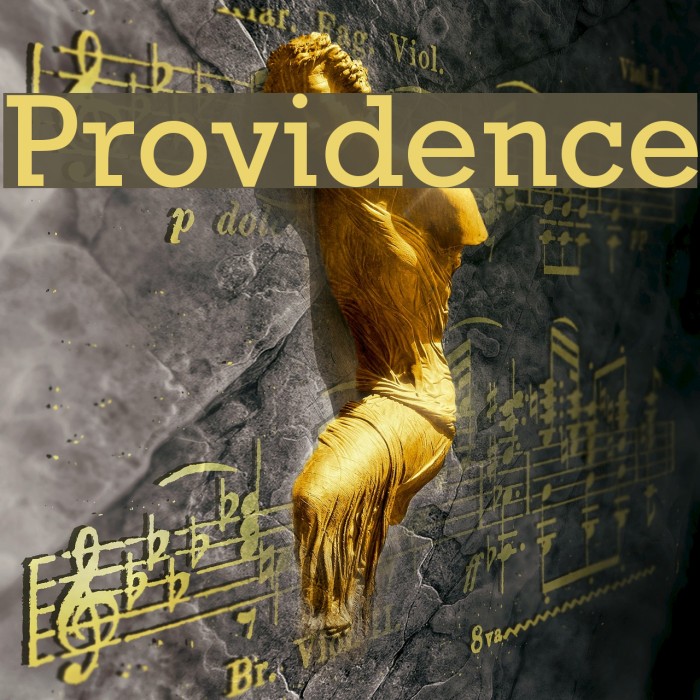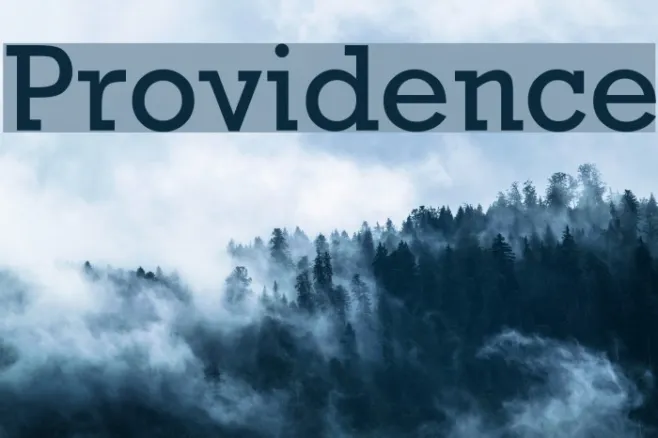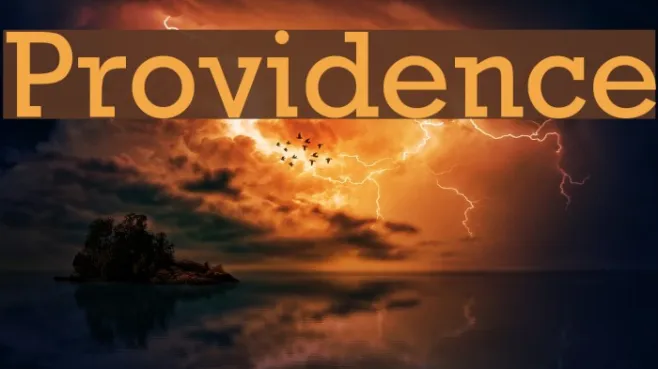
Providence Font
This font features a classic serif style with a modern twist, characterized by its clean and elegant lines. The uppercase letters are bold and commanding, while the lowercase letters maintain a smooth and balanced appearance. The numerals are distinct and easy to read, making them suitable for various applications. The special characters are well-integrated, providing a cohesive look across all glyphs. The font's overall design is versatile, offering a timeless appeal that can enhance both digital and print media. Its readability and aesthetic make it an excellent choice for a wide range of projects.
A classic serif font with modern elegance and versatility.
- Proposed Projects: Ideal for editorial design, branding, book covers, and formal invitations.
- Overall Style: Classic